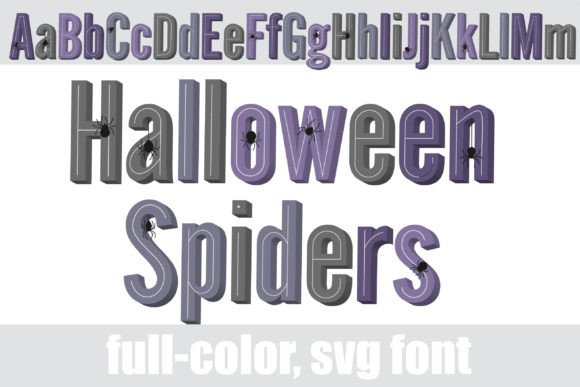
Feel the spooky spirit of Halloween through our breathtaking Halloween Spiders Font – an unearthly dance of colorful sans serif letters, interwoven with creeping spiders! Dive into the vibrancy of Halloween with every word you type, creating designs that are as enchanting as an eerie night.
This font is a color-lover's dream, boasting a palette that brings the essence of Halloween to life. From fiery oranges and ghostly greens to deep purples and haunting blues, it's a symphony of colors that will ignite your creativity. Experience the thrilling transformation as your text takes on a life of its own, as if spun by a mischievous spider's web.
With Halloween Spiders Font, your designs will cast a spell on your audience, leaving them bewitched by its enchanting flair. Its versatility knows no bounds, whether you're weaving magical logos, conjuring captivating posters, or crafting spellbinding invitations. Embrace the magic of Halloween and let your designs be the talk of the haunted town.
So, embrace the haunting beauty of Halloween Spiders Font and spin a web of enchanting designs that will leave your audience captivated and spellbound. Let your imagination run wild and let this font be your conduit to a world of creativity that's as captivating as a moonlit Halloween night.